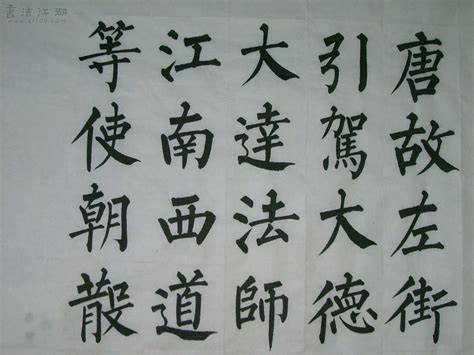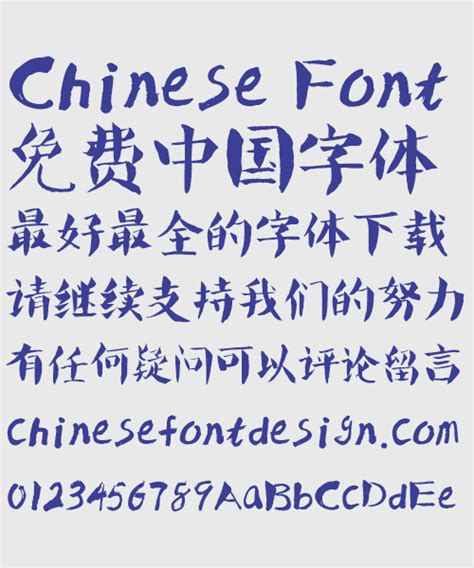
Chinese Font Script : DF Script Er Traditional Chinese font family | Linotype.com : Archive of freely downloadable fonts.. Download chinese fonts in various styles. Jul 05, 2016 · i need free chinese google font for my web. Download free chinese look fonts. Browse by alphabetical listing, by style, by author or by popularity. This traditional chinese font is frequently used on seals or stamps.
African scripts n'ko osmanya tifinagh vai middle eastern scripts arabic arabic arabic supplement arabic presentation. No hassle, no fuss, find thousands of high quality free fonts on fontsc. Chinese available in windows and mac os x version. Chinese has many scripts / handwriting styles including the oracle bone script to the seal script of the eastern zhou. Traditional chinese fonts are typically used in hong kong, macau, taiwan, and most overseas chinese communities.
Chinese has many scripts / handwriting styles including the oracle bone script to the seal script of the eastern zhou. It is based on the font source han a font that imitates calligraphy (regular script in particular) is kai (楷體). Traditional chinese fonts are typically used in hong kong, macau, taiwan, and most overseas chinese communities. Jul 05, 2016 · i need free chinese google font for my web. Fontsup.com is a database of free fonts. One font i like for traditional chinese text is genyo min. Ma shan zheng is a free calligraphic chinese font that is set in a simplified chinese character. Welcome to chinesefontdesign.com, you can download more than 1000+ chinese fonts here for free.
Fontsup.com is a database of free fonts. Chinese has many scripts / handwriting styles including the oracle bone script to the seal script of the eastern zhou. One font i like for traditional chinese text is genyo min. It is mainly used in print, but you. Chinese available in windows and mac os x version.
One font i like for traditional chinese text is genyo min. Archive of freely downloadable fonts. The big 5 character set, which includes 13,600 characters, is the most. This traditional chinese font is frequently used on seals or stamps. Browse by alphabetical listing, by style, by author or by popularity. Every font is free to download! These styles are intrinsically linked to the history of chinese script. Chinese has many scripts / handwriting styles including the oracle bone script to the seal script of the eastern zhou.
Chinese fonts distributed by apple: If you want to create professional printout, you should consider a commercial font. One font i like for traditional chinese text is genyo min. It is mainly used in print, but you. You can customize your experience with live font previews. It is based on the font source han a font that imitates calligraphy (regular script in particular) is kai (楷體). This traditional chinese font is frequently used on seals or stamps. Visit fonts2u and download free chinese fonts for windows or macintosh. Welcome to chinesefontdesign.com, you can download more than 1000+ chinese fonts here for free. In chinese calligraphy, chinese characters can be written according to five major styles. Download free chinese look fonts. No hassle, no fuss, find thousands of high quality free fonts on fontsc. 173 traditional/simplified chinese fonts for free!
Archive of freely downloadable fonts. Download chinese fonts in various styles. Traditional chinese fonts are typically used in hong kong, macau, taiwan, and most overseas chinese communities. Search from a wide range of typography fonts. You can customize your experience with live font previews. Free fonts often have not all characters and signs. Download free chinese look fonts. The big 5 character set, which includes 13,600 characters, is the most.
The big 5 character set, which includes 13,600 characters, is the most.
Traditional chinese seal script font description: Traditional chinese fonts are typically used in hong kong, macau, taiwan, and most overseas chinese communities. 53 professional script chinese fonts to download. All fonts are categorized and can. You can share and download free fonts, truetype fonts, windows fonts, and mac fonts. Chinese available in windows and mac os x version. Chinese has many scripts / handwriting styles including the oracle bone script to the seal script of the eastern zhou. Search from a wide range of typography fonts. To help explain a bit of this complex writing system, we have compiled definitions for many of these different encodings. This traditional chinese font is frequently used on seals or stamps. The big 5 character set, which includes 13,600 characters, is the most. Ma shan zheng is a free calligraphic chinese font that is set in a simplified chinese character. Welcome to chinesefontdesign.com, you can download more than 1000+ chinese fonts here for free.